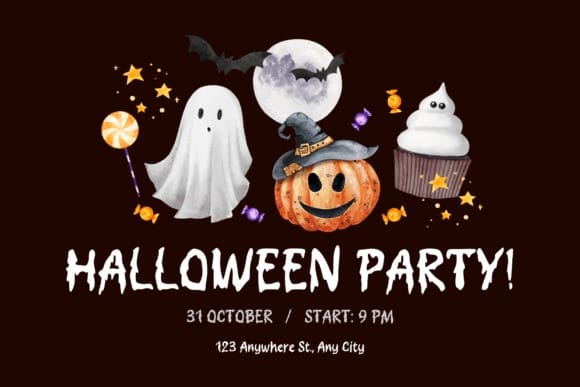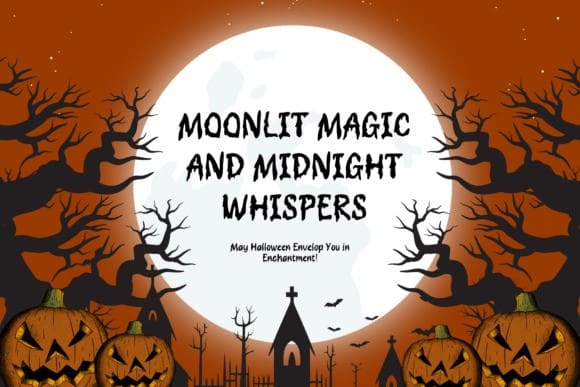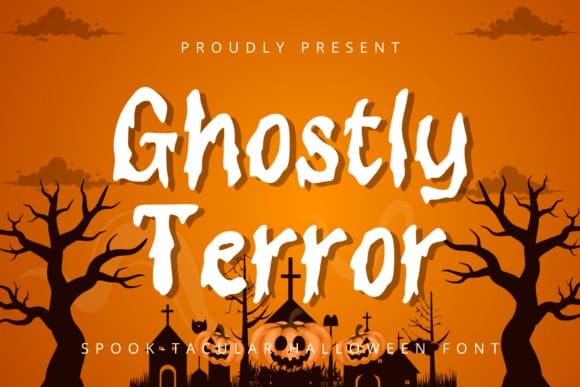
Ghostly Terror Font
Ghostly Terror Font, a spine-chilling horror font steeped in the spirit of Halloween. Echoing the spectral beauty of melting blood, its meticulous detailing transports you to a realm of delightful dread. Unleash GhostlyTerror’s undeniable power to infuse a captivatingly creepy aura into any Halloween-themed design project.